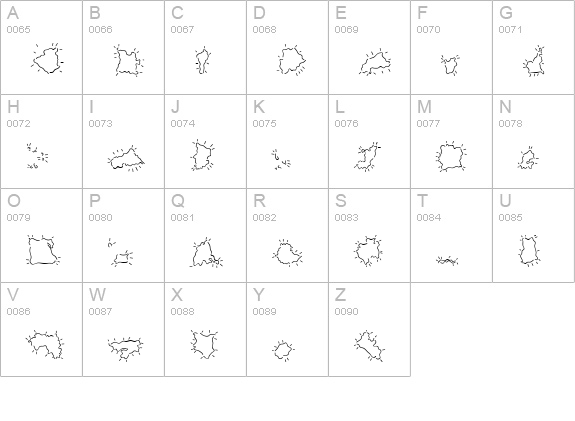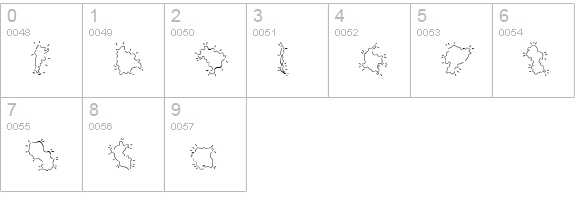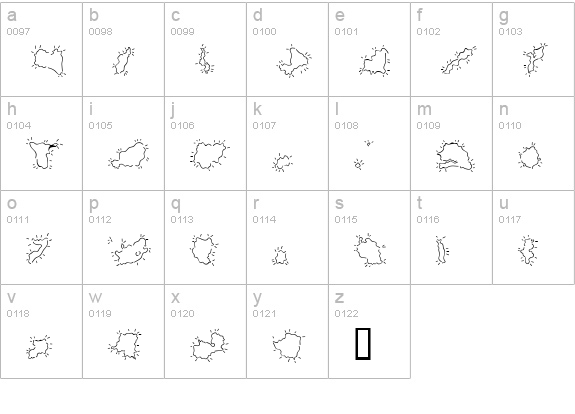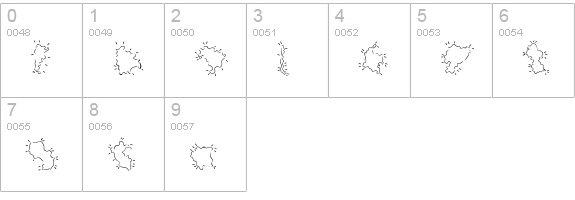
Mini Pics Global S Spurt font is a whimsical and playful typeface that exudes energy and dynamism. Its unique design features funky, irregular letterforms that give off a sense of movement and spontaneity. Perfect for adding a touch of fun and excitement to your designs, this font is sure to grab attention and make a statement. What's even better is that Mini Pics Global S Spurt font is available for free download at FontsMarket.com. So go ahead and grab this fantastic font to add a dash of creativity to your projects without spending a dime. Whether you're working on posters, invitations, or branding materials, this font will surely bring a fresh and vibrant look to your designs. Download Mini Pics Global S Spurt font today and let your creativity soar!